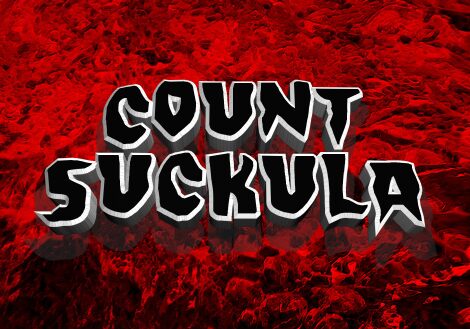
Count Suckula Rotated 2
Count Suckula Rotated 2 font by Iconian Fonts is an edgy free horror-themed display font. The bold style makes every character expressive even if they do not contain extra decorative elements. You can feel how nostalgic this condensed font is mainly with its Gothic, with some dramatic effect, and slightly modern side. Use the horror-side of this inspiring font or habit it to the feelings you wish your project delivers.
The display fonts most suitable uses include posters, book covers, product packaging, magazine covers, and websites especially those concerned about video games. Apply in apps and websites that address movies or create dedicated sections dealing with horror shows or anything related where needed. Mark special pages on newspapers and make the text throughout different areas pleasing for readers through Count Suckula Rotated 2 usage throughout its paragraphs’ content začetku ili između rečenica – obični tekst ili naslovi i podnaslovi.